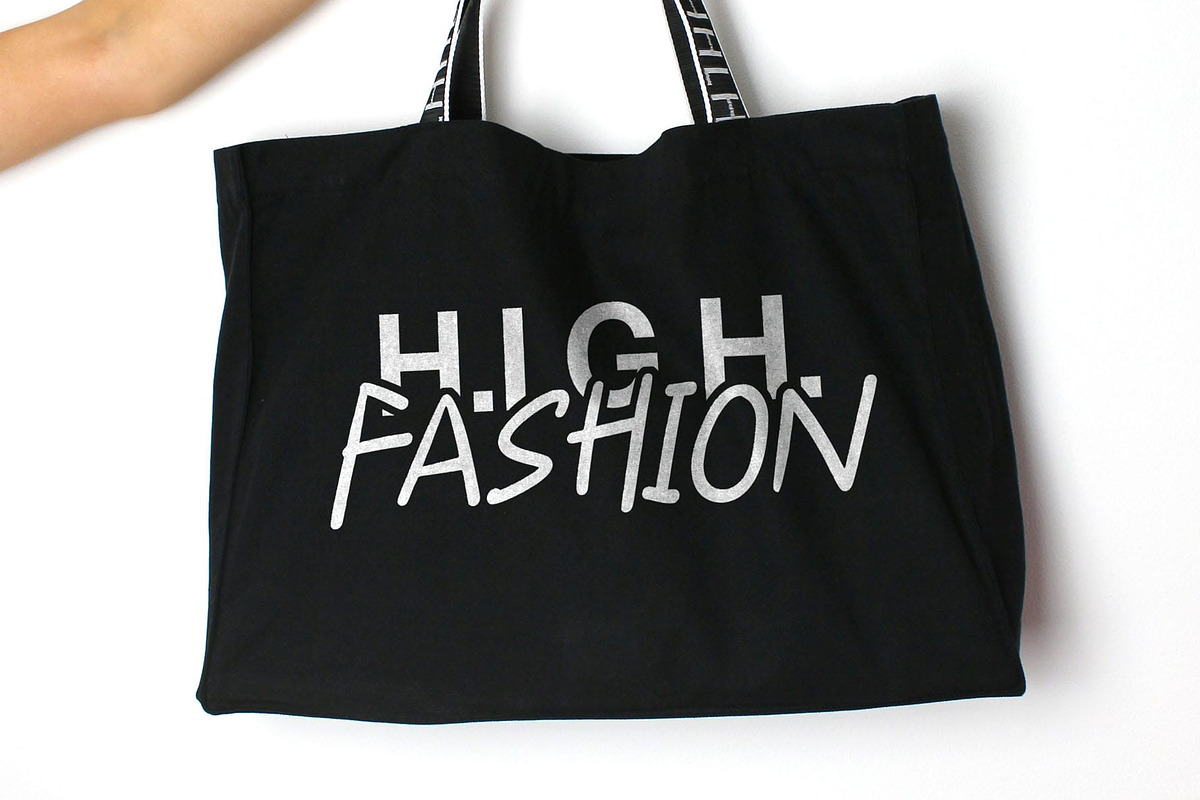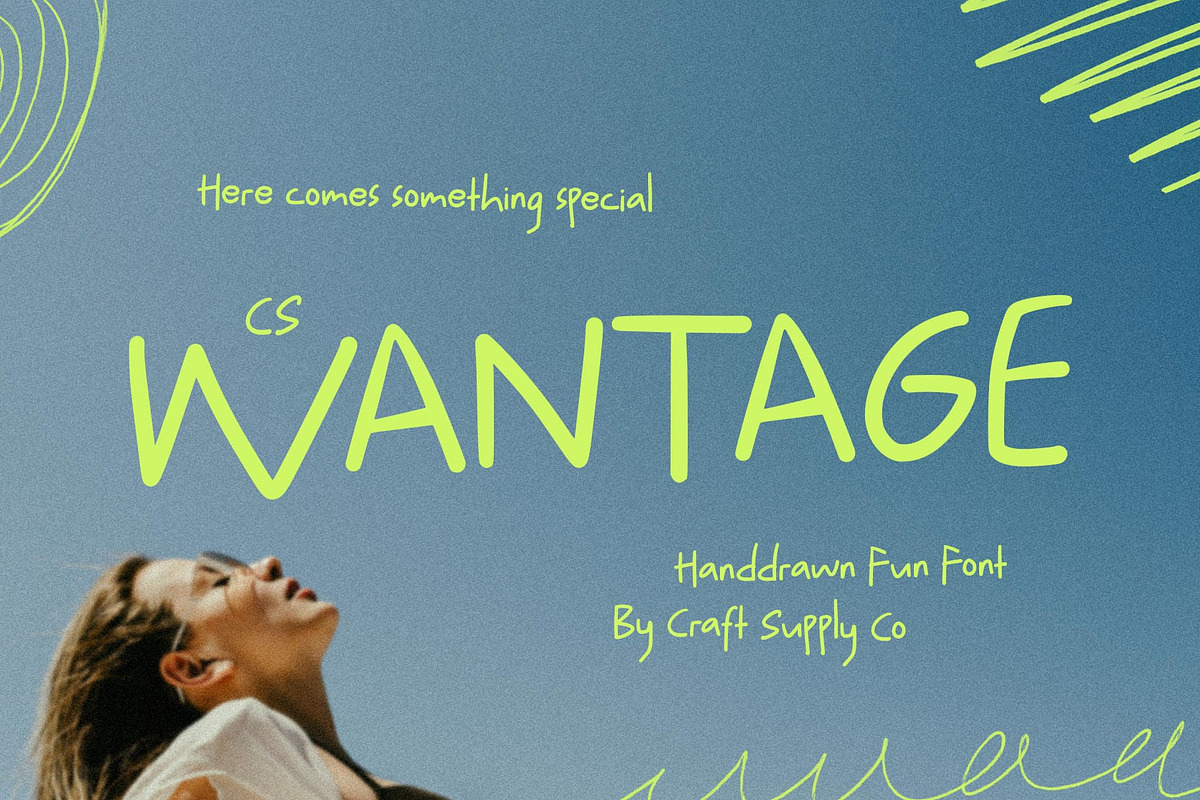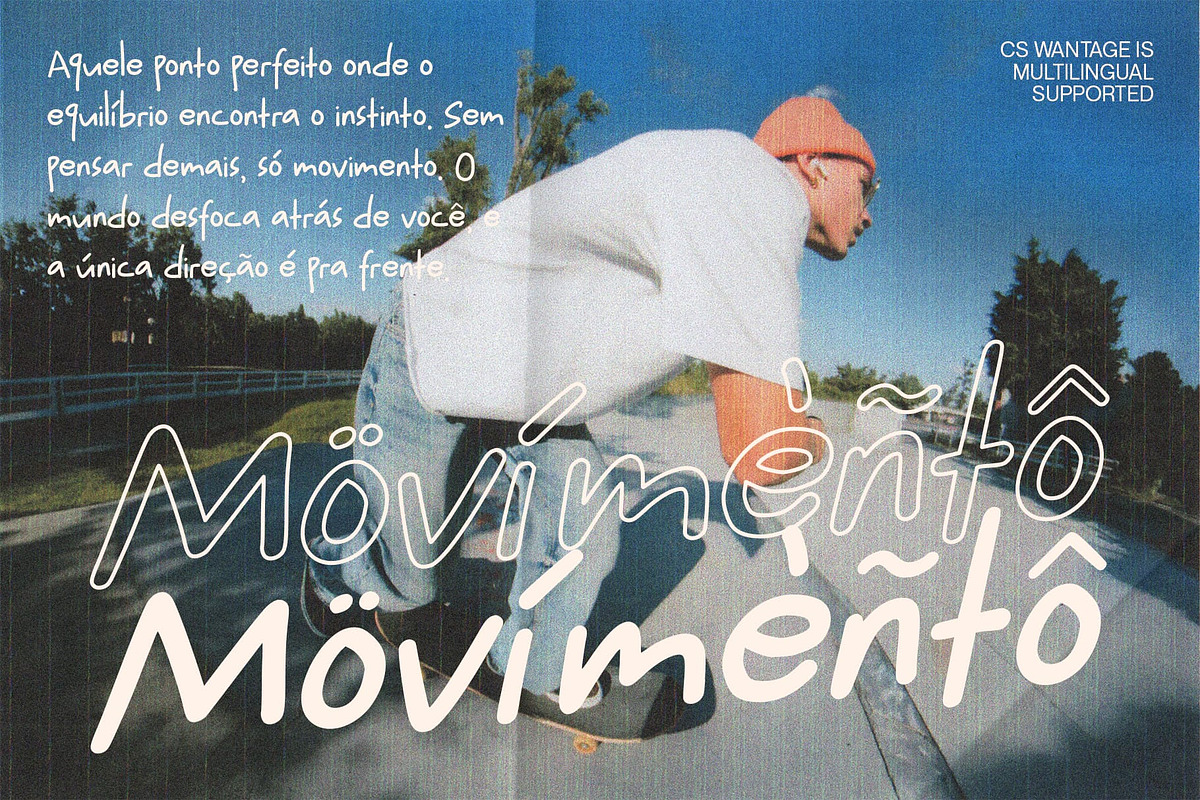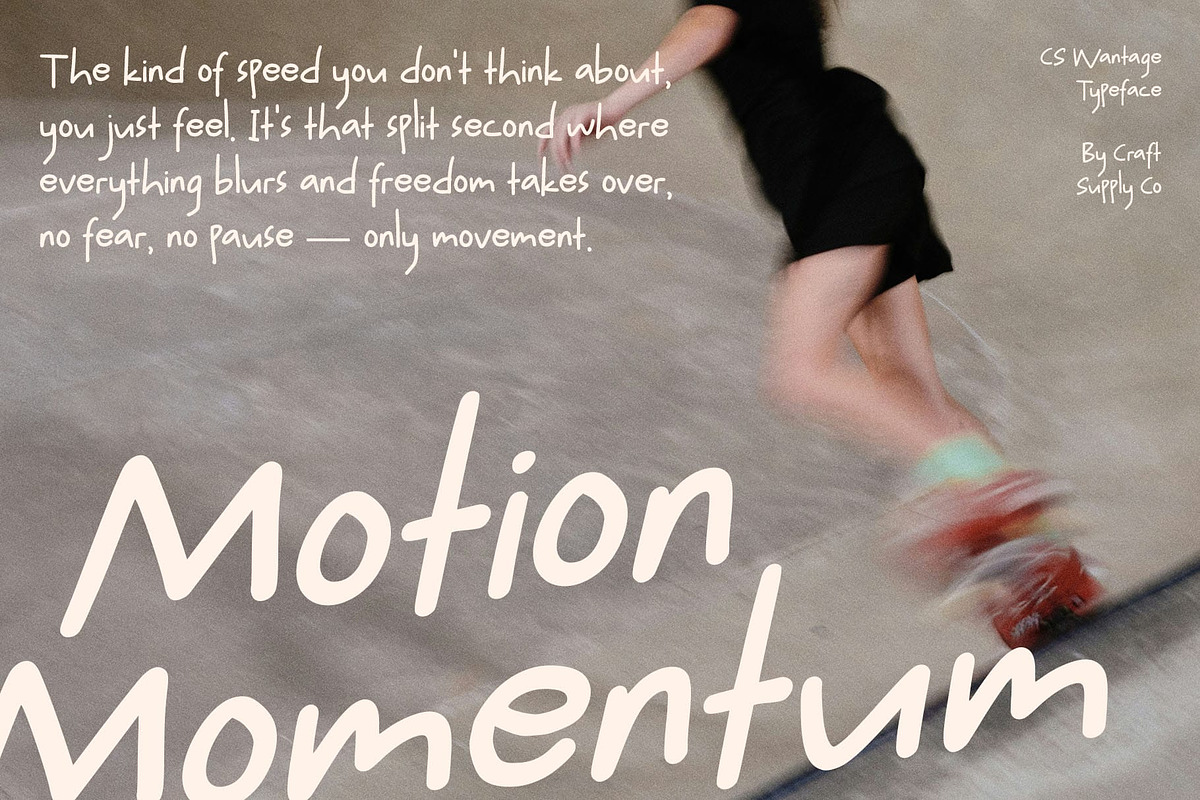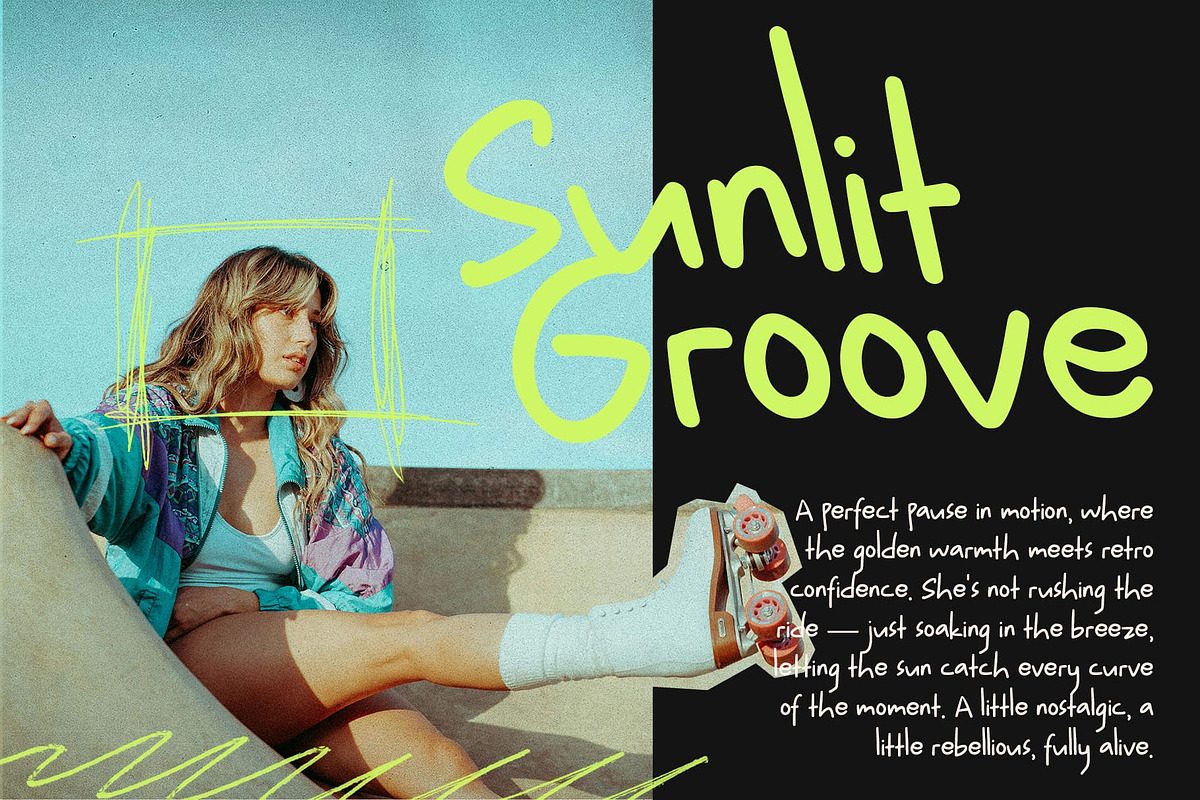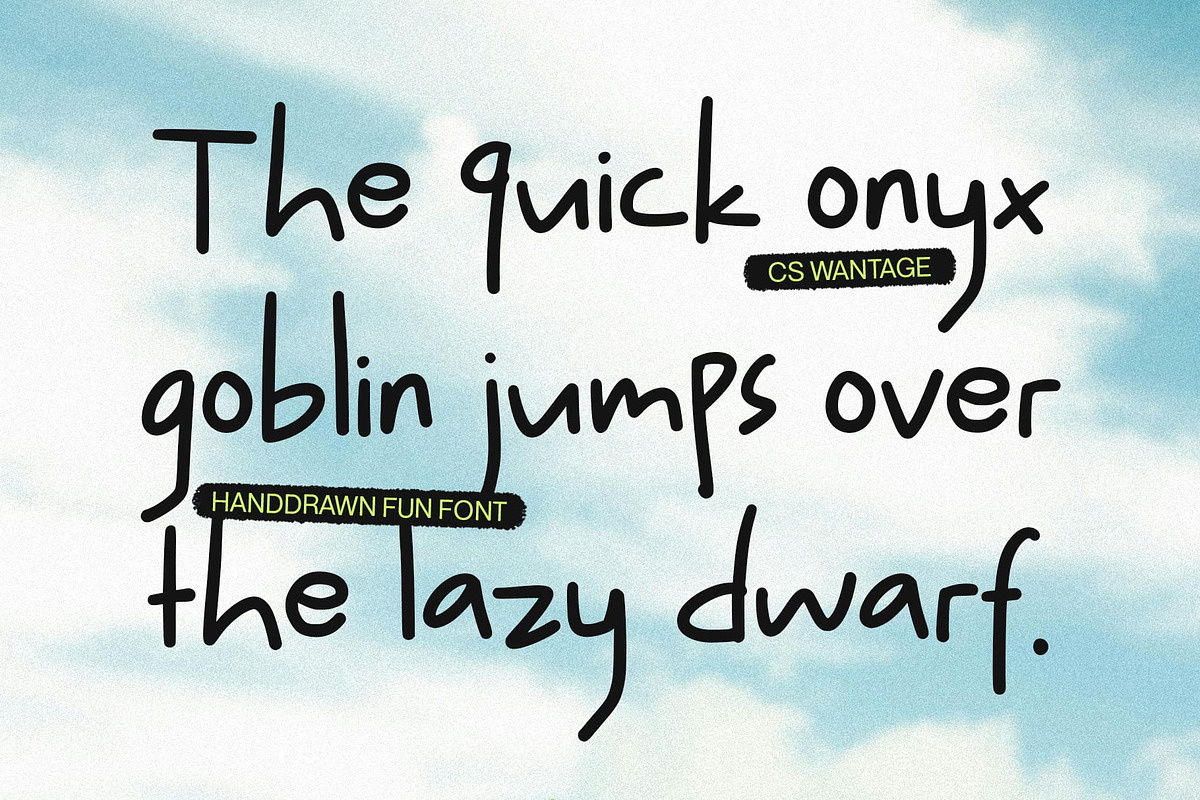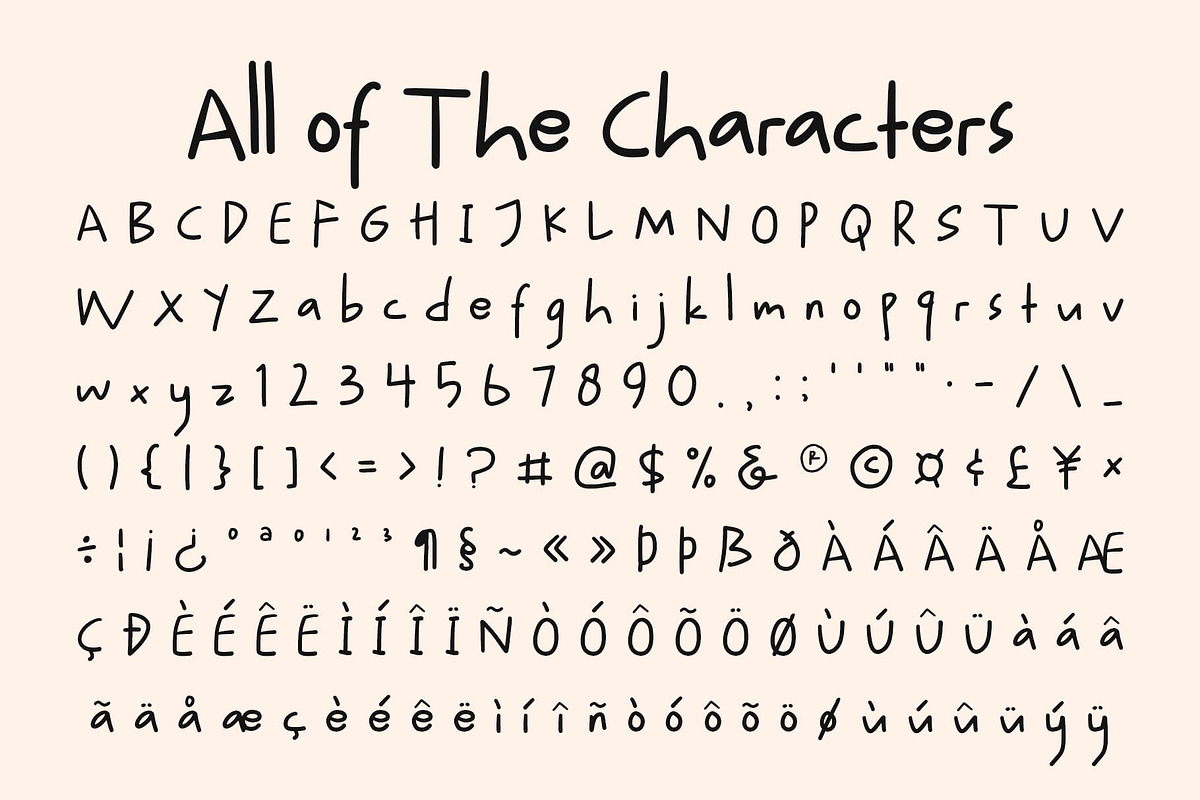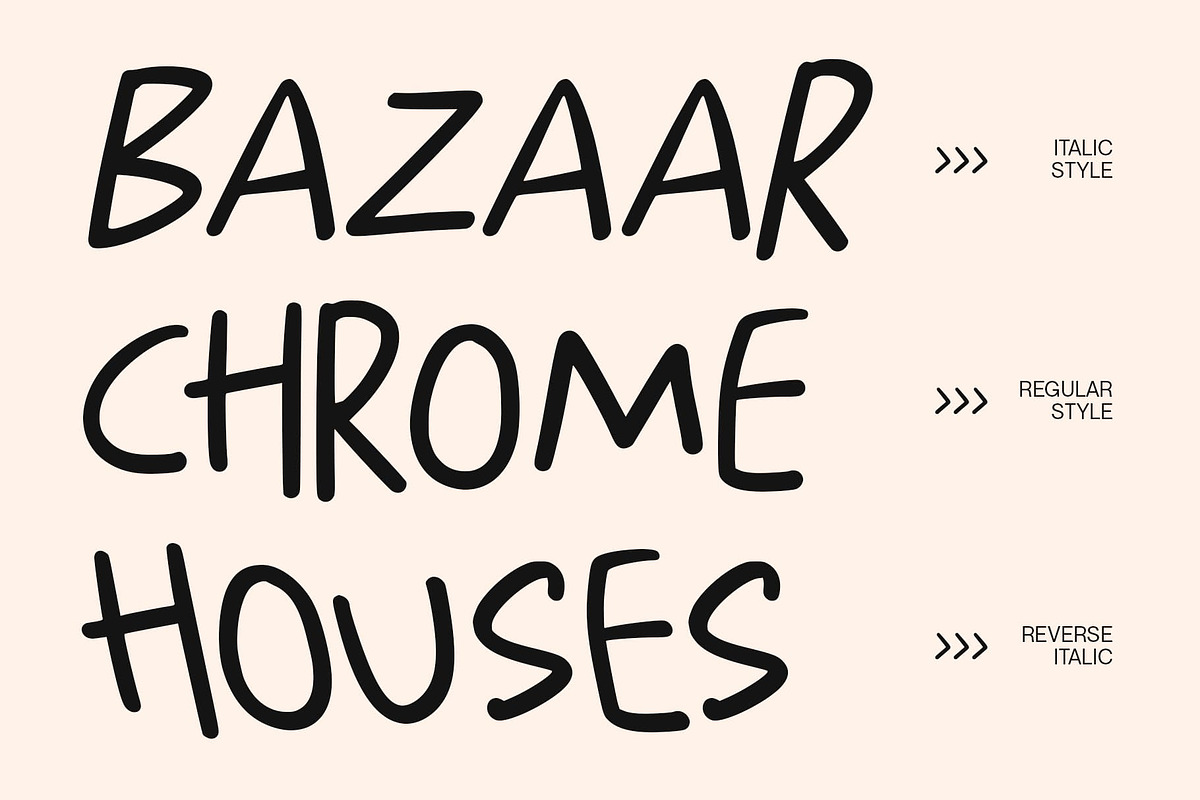
CS Wantage – Fun Handwritten Font
CS Wantage – Fun Font with Playful Personality and Irregular Look
Vibrant Typography with Youthful Energy This is a playful and energetic fun font that radiates joy and spontaneity. With its irregular writing style, friendly shapes and sans serif font, this typeface captures the carefree spirit of childhood and creativity. It’s designed to bring a lighthearted, approachable charm to any design project.
Irregular Shapes for a Handcrafted Feel Each letter in this font feels alive with motion and character. The uneven strokes and imperfect rhythm give it a hand-drawn authenticity, making it perfect for greeting cards, playful branding, and kid-focused visuals. This handcrafted touch adds warmth and individuality to your typography.
Perfect for Youthful and Creative Designs Whether you’re designing for children’s brands, educational materials, or fun event posters, this font delivers an inviting and cheerful atmosphere. Its dynamic letterforms make text feel friendly and expressive, ideal for projects that need to radiate happiness and positivity.
Versatile, Friendly, and Full of Character This is more than just a kids’ font it’s a versatile choice for modern playful design. From social media graphics to creative packaging, it adds an instant burst of personality. Every curve and quirk in its form contributes to a joyful, imaginative aesthetic that engages and delights.